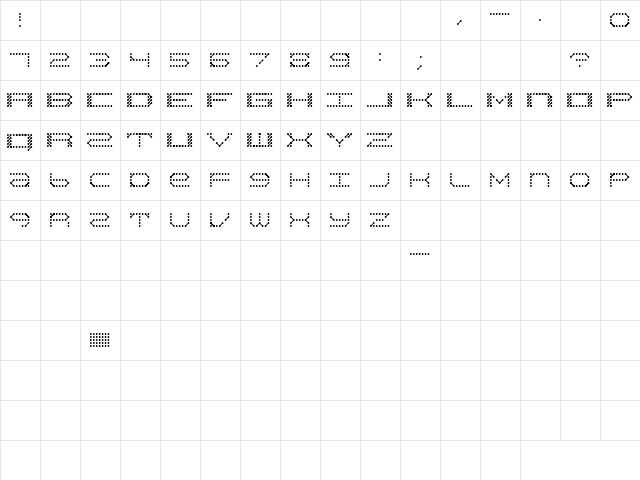
QZ Teletype II Regular
Design Context for QZ Teletype II Typeface
QZ Teletype II is a composed and adaptable typeface that performs quietly and consistently across a wide range of design contexts.